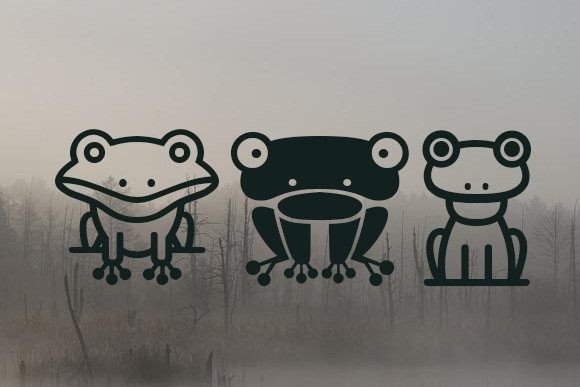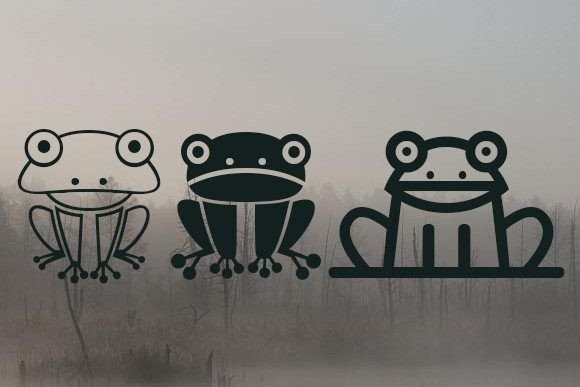
The Ultimate Guide to Froggy Font: A Designer’s New Best Friend
I’ll never forget the time I was working on a project for a client’s children’s book. I had a clear vision of what I wanted to achieve, but I just couldn’t find the right font to bring it all together. The client’s request was simple: make it fun, playful, and engaging. That’s when I stumbled upon Froggy Font, and let me tell you, it was love at first sight! 🐸
Froggy is an awesome dingbat that will look stunning on any of your works. This dingbat is perfect for headlines and banners, and I’m excited to share my experience with you.
Honest Review: The Good, the Bad, and the Quirky
What I Love About Froggy Font
- ✨ Unique and playful design that’s sure to grab attention
- ✅ Highly versatile and can be used for various design projects
- 🔍 Easy to read and understand, even at smaller font sizes
While Froggy Font is an excellent choice, there are a few things to keep in mind:
- 🤔 Limited character set, which might not be suitable for body text or longer paragraphs
- ⚠️ Not ideal for small font sizes, as some details might get lost
Froggy Font was created with the intention of bringing a playful, carefree vibe to design projects. The designer, inspired by the whimsical world of children’s books, aimed to craft a font that would evoke a sense of fun and imagination. With its unique design and versatility, Froggy Font has become a go-to choice for designers looking to add a touch of personality to their work.
Q: Is Froggy Font suitable for body text?
A: While Froggy Font is amazing for headlines and banners, it’s not ideal for body text due to its limited character set and dingbat design.